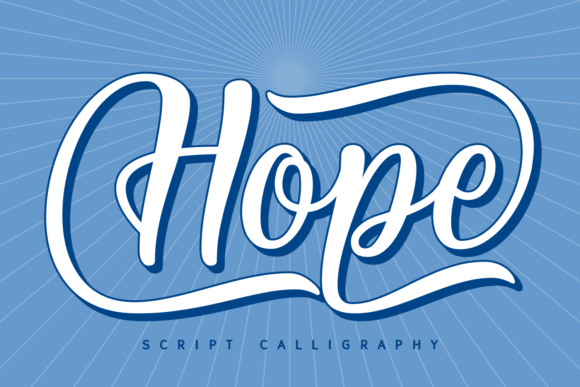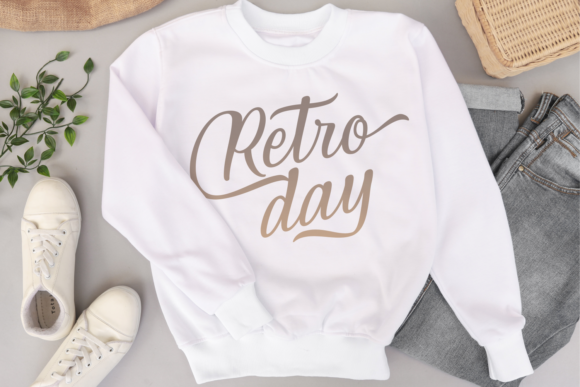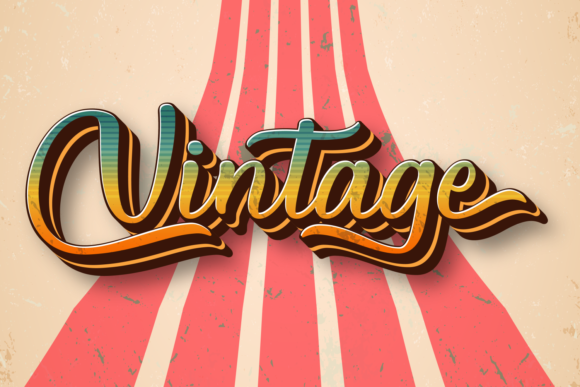
About Hope Font
Introducing Hope, a vintage script font crafted to add a touch of retro charm to your creative designs and projects. This nostalgic calligraphy typeface is versatile and well-suited for a variety of applications, making it perfect for t-shirt designs, posters, covers, birthday cards, wall art, frames, signs, and quotes.
Hope’s appeal lies in its vintage script design, bringing a sense of nostalgia and character to your creative endeavors. Whether you’re working on a retro-inspired t-shirt design or crafting a poster with a timeless feel, this font adds a unique and authentic touch.
For t-shirt designs, Hope becomes a key element in creating a vintage and stylish look. The script font’s retro charm adds character to your apparel designs, making them stand out with a classic and enduring aesthetic.
In posters and covers, Hope contributes to a visually captivating and nostalgic atmosphere. The vintage script brings a sense of history and authenticity, making it suitable for various themes and design concepts.
Birthday cards and wall art benefit from the unique charm of Hope, creating a warm and inviting feel. The script font adds a personal touch, making your messages and designs resonate with a timeless and sentimental quality.
Frames and signs become eye-catching with the vintage appeal of Hope. Whether used for quotes or decorative elements, this font enhances the overall aesthetic with a touch of retro elegance.
Hope is not just a font; it’s a creative tool that allows you to infuse your designs with vintage charm. Embrace the nostalgic feel of Hope as you explore its potential in bringing a timeless and classic touch to your creative projects.